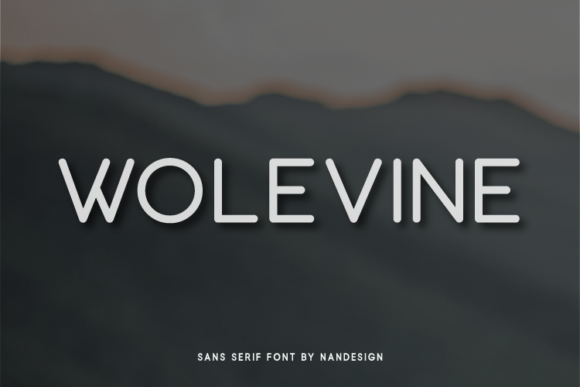
Introducing Wolevine Font - The Epitome of Minimalist Elegance for Your Design Endeavors
In the realm of digital artistry, fonts hold the power to transform ordinary words into captivating expressions. They are the architects of visual aesthetics, weaving a tapestry of emotions and meanings through their intricate strokes and curves. Among this vast universe of typographic wonders, the Wolevine Font emerges as a radiant beacon of minimalist beauty, beckoning you to embark on a creative odyssey like no other.
Carved with the utmost precision and attention to detail, Wolevine Font embodies the essence of simplicity and sophistication. Its clean lines and unadorned charm lend an air of understated elegance to any design project, allowing your content to shine with unfettered clarity. Whether you are crafting logos, posters, website designs, or any other form of visual media, Wolevine Font stands ready to elevate your creations to new heights of visual appeal.
Step into a world where fonts transcend their traditional role as mere text enhancers and become integral elements of your storytelling. Wolevine Font possesses an innate ability to evoke emotions, to stir the soul, and to leave a lasting impression on your audience. Its versatile nature effortlessly adapts to a myriad of design styles, seamlessly blending with your vision to create a cohesive and visually stunning masterpiece.
Embrace the boundless possibilities that await you with Wolevine Font as your creative companion. Its minimalist aesthetic provides a blank canvas upon which your imagination can run wild, free from the constraints of cluttered and overbearing designs. Let your creativity soar as you explore the limitless potential of this font, transforming your ideas into captivating realities.
With Wolevine Font at your disposal, you unlock a world of endless possibilities. Design logos that exude professionalism and leave a lasting impression, craft posters that ignite curiosity and intrigue, and create website layouts that engage and captivate visitors. Wolevine Font is the ultimate tool for designers seeking to make a statement and leave an indelible mark on the digital landscape.
Do not settle for ordinary fonts that blend into the background. Embrace the power of Wolevine Font and unleash your creative genius. Experience the joy of crafting designs that resonate with your audience, designs that speak volumes without uttering a single word. Let Wolevine Font be your trusted companion on this extraordinary journey of visual storytelling, where every stroke of the key tells a tale and every design becomes a masterpiece.